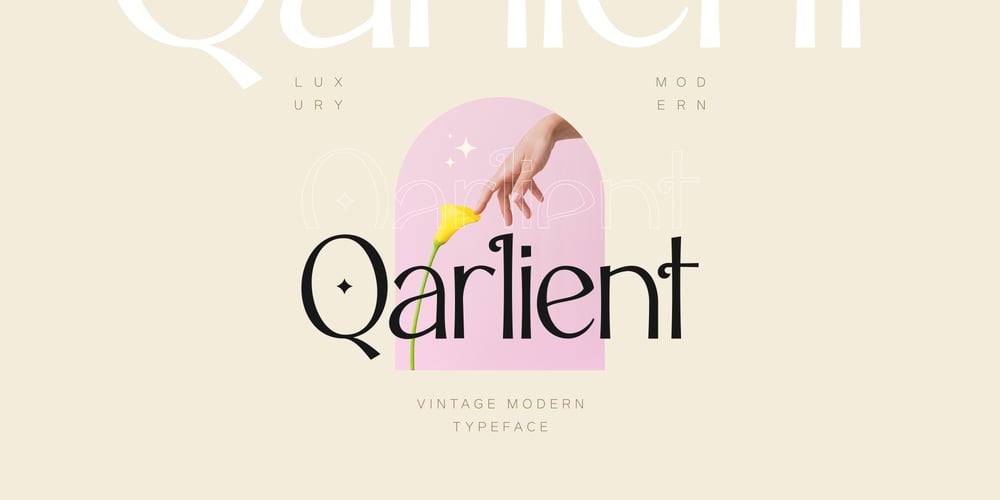
Qarlient Font Family was designed by Abul Almaududi and published by Pixesia Studio. Qarlient contains 1 styles and family package options. Introducing Qarlient – A Modern Serif FontQarlient is a powerful modern serif font with freshness, elegance and unique appearance. This font concept includes a wide range of inspirations, from ancient to classical to modern, making it a perfect font for low-key, modern and refined appearance. Ton of beauty and luxury alternates make this serif font very versatile. This gives any branding or logo design looks unique. Qarlient font is perfect for Magazine, Social Media, Poster, Business Card, and Many more that needs Unique touches.FEATURES- Stylistic Alternates- PUA Encode- Uppercase and Lowercase letters- Numbering and Punctuations- Multilingual Support- Works on PC or Mac- Simple Installation- Support Adobe Illustrator, Adobe Photoshop, Adobe InDesign, also works on Microsoft WordHope you Like it.Thanks.